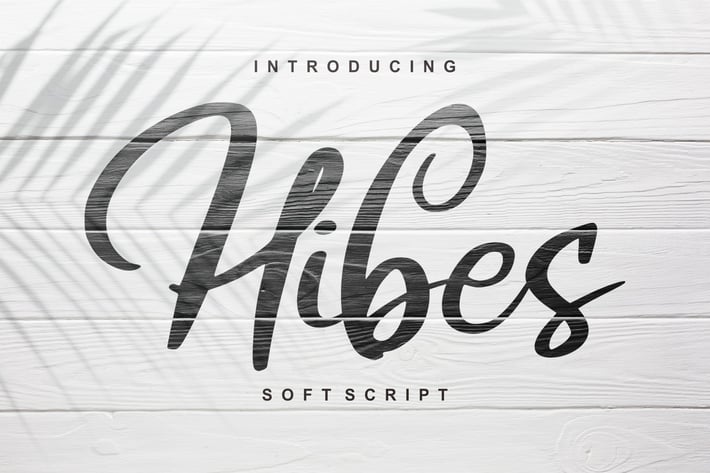
Hibes | Soft Script Font
Hibes | Soft Script Font with a calligraphy style, So beautiful on invitation like greeting cards, branding materials, business cards, quotes, posters, and more!